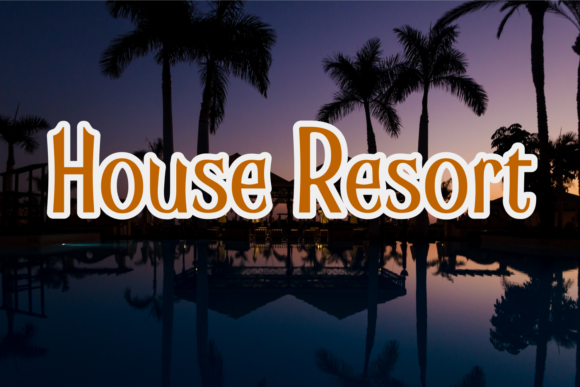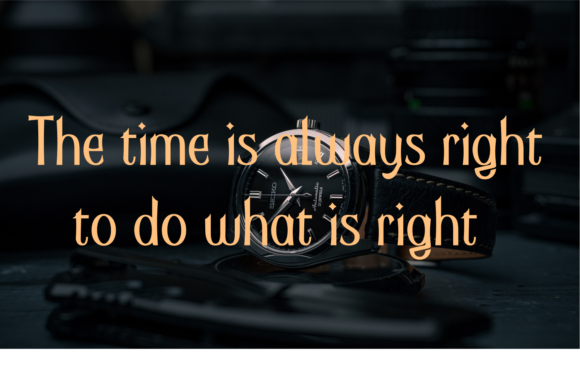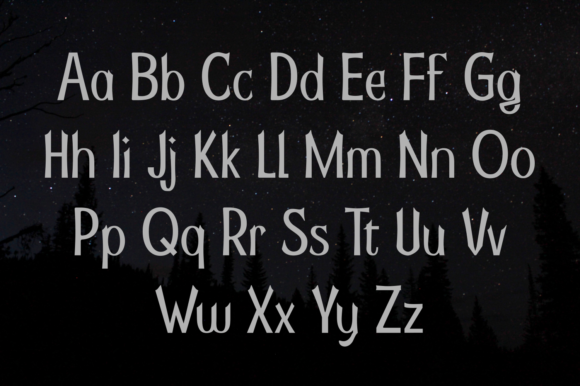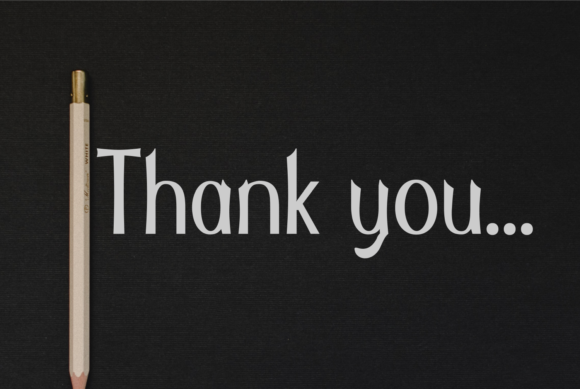
Discover the Versatility of Gringer Font: Elevate Your Designs with a Cool, Adaptable, and Fun Serif Font
In the world of typography, finding the perfect font that can elevate your designs and adapt to various themes can be a daunting task. However, if you’re looking for a font that can add a touch of coolness, adaptability, and fun to your creations, look no further than the Gringer Font. This incredible serif font is designed to be an asset to your font library, capable of enhancing any project with its unique charm.
What Makes Gringer Font Stand Out?
Gringer Font is not just another serif font; it’s a versatile typeface that brings a fresh perspective to the world of typography. Its cool and adaptable nature makes it suitable for a wide range of projects, from creative crafts to digital designs. Whether you’re working on a branding project, a website, or a print material, Gringer Font can add a distinctive touch that sets your work apart.
Key Features of Gringer Font
- Cool and Adaptable: Gringer Font boasts a modern and sleek design that can easily adapt to various themes and styles, making it a perfect choice for designers who want to experiment with different looks.
- Fun Serif Design: The serif design of Gringer Font adds a touch of elegance and sophistication, while its fun twist ensures that your designs don’t get too boring or conventional.
- Versatile: From digital platforms to print materials, Gringer Font can be used across various mediums, ensuring consistency and quality in your designs.
- Elegant and Sophisticated: Despite its fun nature, Gringer Font maintains an air of elegance, making it suitable for projects that require a bit of sophistication.
How Gringer Font Can Elevate Your Designs
Gringer Font has the potential to transform your designs in several ways:
- Branding: Use Gringer Font to create memorable brand logos, business cards, or letterheads that stand out.
- Digital Content: Enhance your website, blog, or social media graphics with Gringer Font, adding a professional yet fun touch.
- Print Materials: Whether it’s brochures, posters, or flyers, Gringer Font can add a unique flair to your print designs.
- Crafts: For crafters, Gringer Font can be used in various DIY projects, such as handmade cards, journals, or decorative items.
Tips for Using Gringer Font Effectively
To get the most out of Gringer Font, consider the following tips:
- Experiment with Sizes: Gringer Font can look great in various sizes. Experiment with different sizes to find the perfect fit for your project.
- Play with Colors: Don’t be afraid to try out different colors. Gringer Font can complement a wide range of color schemes.
- Mix and Match: Combine Gringer Font with other fonts for a unique look. Its adaptability makes it a great candidate for pairing.
| Font Name | Gringer Font |
| Author | AnomiEka |
Gringer Font is more than just a serif font; it’s a versatile tool that can elevate your designs, add a touch of coolness, and adapt to various themes. Whether you’re a professional designer or a crafty DIY enthusiast, Gringer Font is an incredible asset to your font library. With its fun, elegant, and adaptable nature, it’s ready to transform your creations and help you stand out in the world of design.